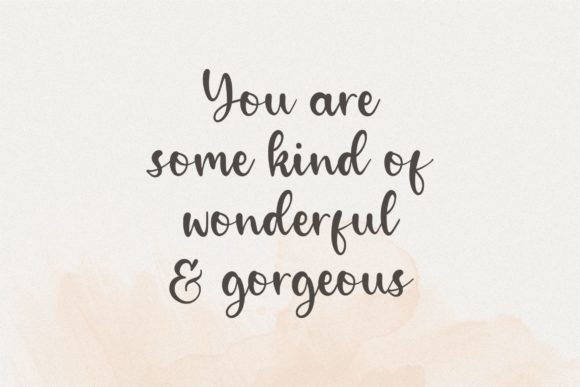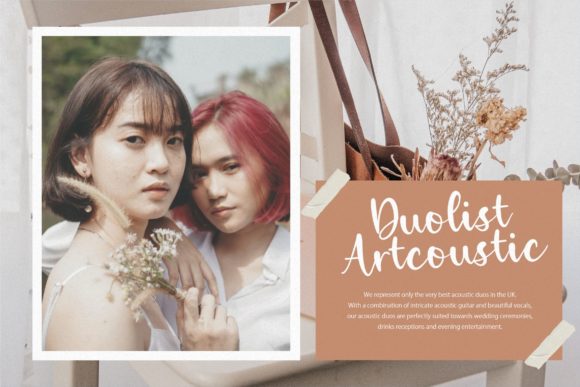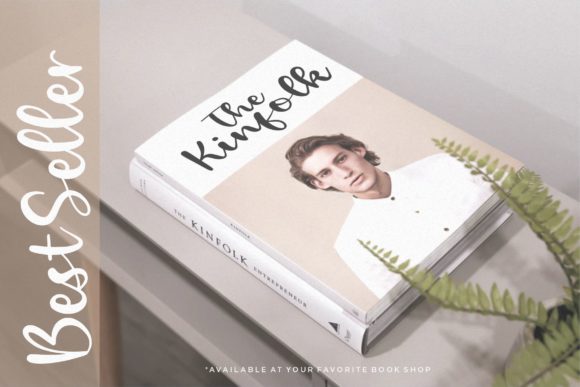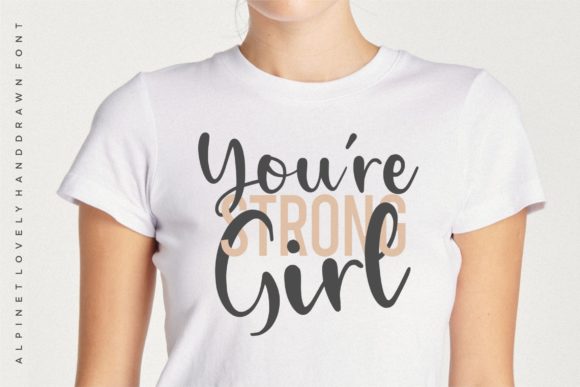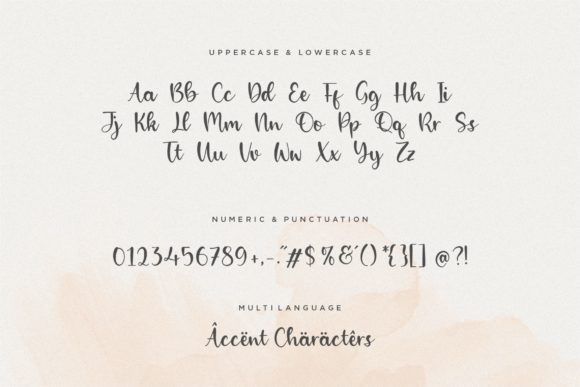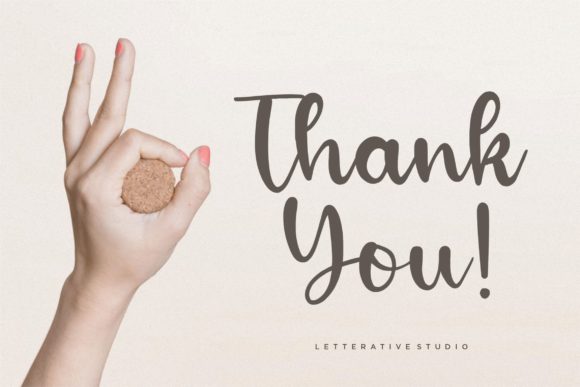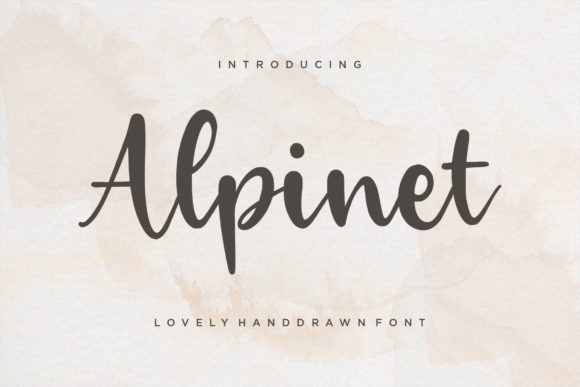
Introducing Alpinet Font: A Timeless Handwritten Masterpiece
Are you a designer or crafter looking for a font that can add a touch of elegance and sophistication to your designs? Look no further than Alpinet Font, a lovely and timeless handwritten font that is sure to make your designs come alive. In this article, we’ll take a closer look at Alpinet Font and explore its features, benefits, and uses.
A Unique and Beautiful Touch
One of the standout features of Alpinet Font is its unique and beautiful touch. Every letter has been carefully crafted to have its own distinct character, making it perfect for creating eye-catching logos, branding, and quotes. The font’s handwritten style gives it a personal and organic feel that is sure to resonate with your audience.
Alpinet Font is a versatile font that is perfect for designers and crafters of all levels. Whether you’re creating a logo, branding materials, or social media graphics, Alpinet Font is the perfect choice. Its elegant and sophisticated style makes it ideal for a wide range of design projects, from wedding invitations to business cards.
Key Features of Alpinet Font
- Handwritten style: Alpinet Font has a beautiful handwritten style that gives it a personal and organic feel.
- Unique letters: Every letter has been carefully crafted to have its own distinct character.
- Elegant and sophisticated: Alpinet Font has an elegant and sophisticated style that is perfect for creating eye-catching designs.
- Versatile: Alpinet Font is perfect for a wide range of design projects, from logos and branding to social media graphics and quotes.
Benefits of Using Alpinet Font
So why should you choose Alpinet Font for your design projects? Here are just a few benefits of using this amazing font:
- Adds a personal touch: Alpinet Font’s handwritten style gives your designs a personal and organic feel that is sure to resonate with your audience.
- Creates eye-catching designs: The font’s unique and beautiful letters are sure to make your designs stand out.
- Perfect for branding: Alpinet Font is perfect for creating branding materials that are elegant, sophisticated, and memorable.
Tips and Tricks for Getting the Most Out of Alpinet Font
Here are a few tips and tricks for getting the most out of Alpinet Font:
- Use it for headlines: Alpinet Font is perfect for headlines and titles, where its elegant and sophisticated style can really shine.
- Experiment with colors: Try pairing Alpinet Font with different colors to create a unique and eye-catching design.
- Use it for quotes: Alpinet Font is perfect for creating inspirational quotes and posters.
- Pair it with other fonts: Try pairing Alpinet Font with other fonts to create a unique and interesting design.
| Font Name | Alpinet Font |
| Author | letterativestudio |
In conclusion, Alpinet Font is a lovely and timeless handwritten font that is perfect for designers and crafters of all levels. Its unique and beautiful letters, elegant and sophisticated style, and versatility make it a must-have font for any design project. Whether you’re creating logos, branding materials, or social media graphics, Alpinet Font is the perfect choice. So why wait? Download Alpinet Font today and start creating amazing designs!